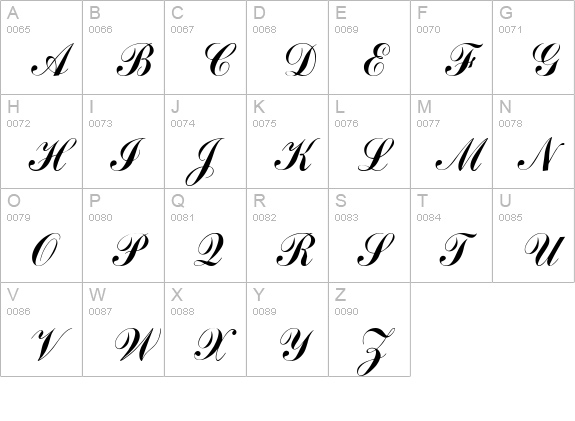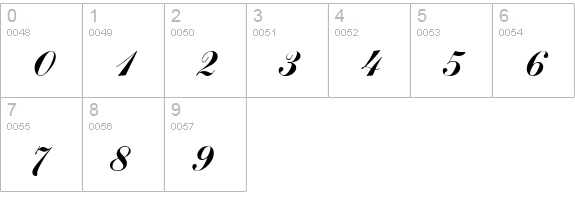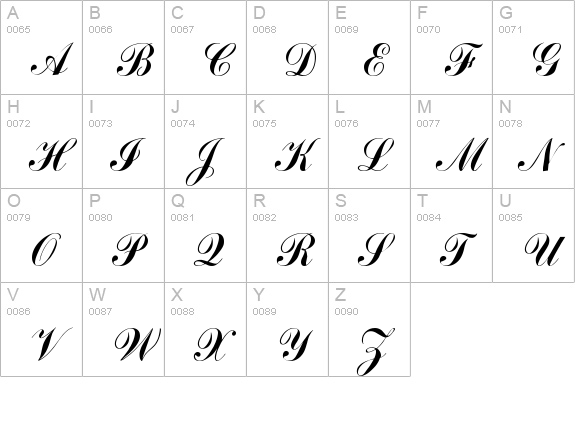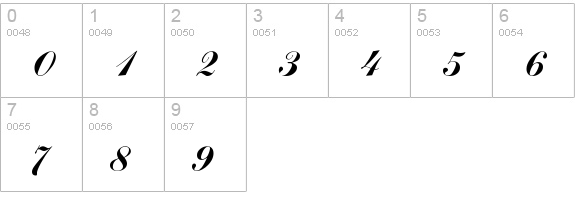
CommercialScriptTwo-Regular Font Details
CommercialScriptTwo-Regular is the standard, neutral variant in the CommercialScriptTwo typeface family \xE2\x80\x94 well suited to general body text, paragraphs, and standard typographic work.
CommercialScriptTwo-Regular is a modern and elegant font that exudes sophistication and professionalism. With its sleek lines and balanced proportions, this font is perfect for a wide range of commercial projects, from branding to advertising. Whether you're designing a logo, creating a flyer, or crafting a website, CommercialScriptTwo-Regular will add a touch of class to your work. The best part? CommercialScriptTwo-Regular is available for free download at FontsMarket.com. So you can elevate your designs without breaking the bank. Don't miss out on this fantastic opportunity to enhance your projects with this versatile and stylish font. Download CommercialScriptTwo-Regular today and take your designs to the next level!